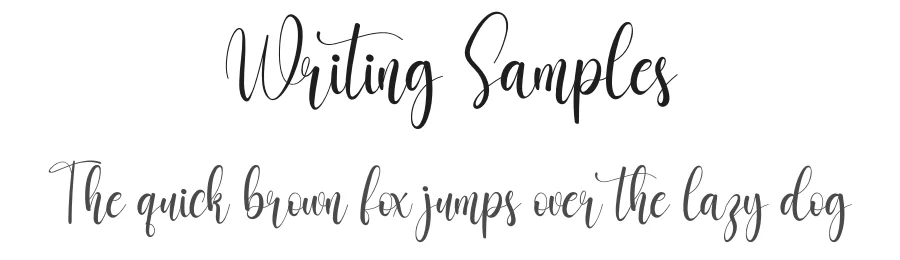
About Marshanda Font
Marshanda is a script font that has the characteristic handwriting, it is very suitable to make certain label and event business and you could be using for a unique piece. Visit here to get full version
Marshanda ships with 2 OpenType features you can switch on in apps that support them (Illustrator, InDesign, Affinity, Figma, CSS font-feature-settings).
- Stylistic sets (5)
Marshanda supports 217 languages.
Marshanda Font is a script font that shines as a display or heading face. Pair it with a clean sans-serif or serif font for body text β the contrast creates a clear hierarchy while the two styles stay balanced and easy to read.
Marshanda Font
by Jhoen Studio